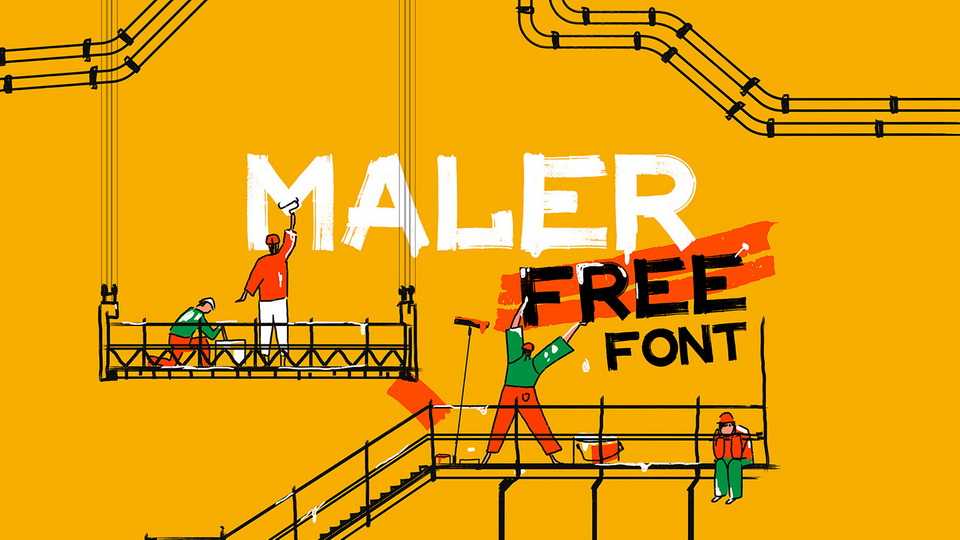
Download Maler font, a very natural hand painted brush font with Latin and Cyrillic support. Maler font with its bold character is ideal for logo or large headline.
Designer: Sergey Vasenin